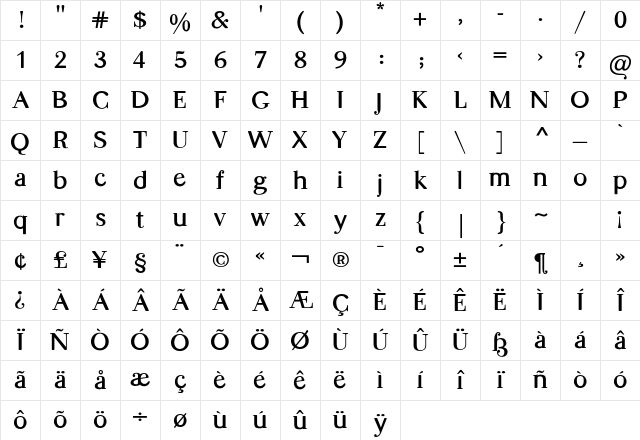
Leash Fat Free Font
Leash Fat
Style: Fat
Complete Leash Fat glyph index. Displaying only characters natively supported by Leash Fat font.
Design Context for Leash
Leash is a composed and adaptable typeface that performs quietly and consistently across a wide range of design contexts.